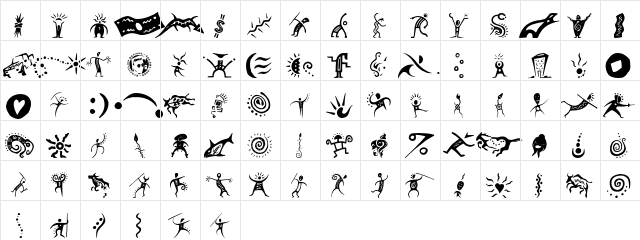
MondKaizen Regular
Design Context for MondKaizen Typeface
MondKaizen is a composed and adaptable typeface that performs quietly and consistently across a wide range of design contexts.